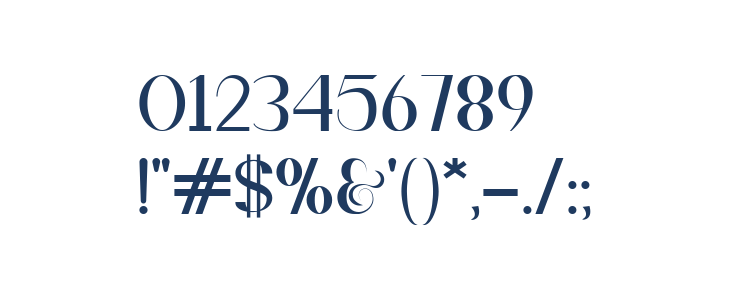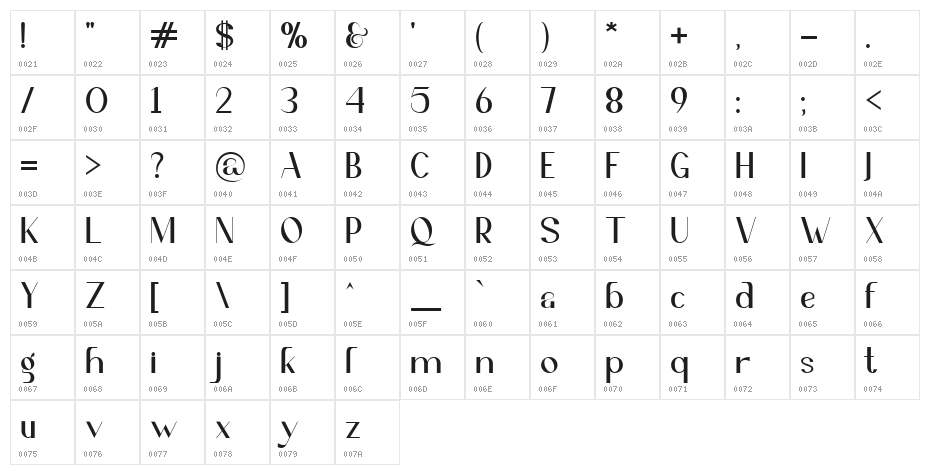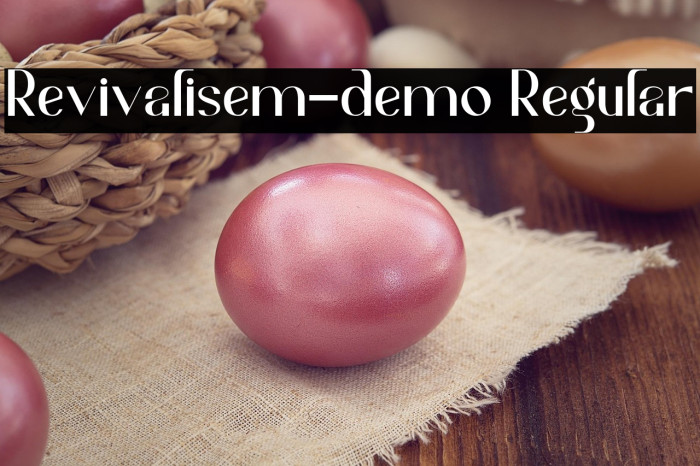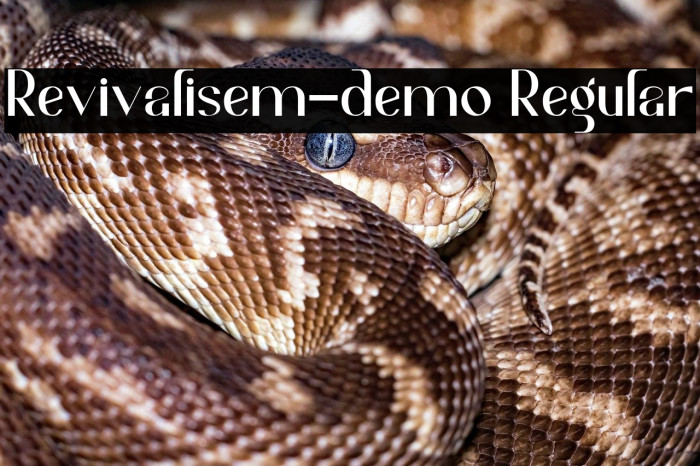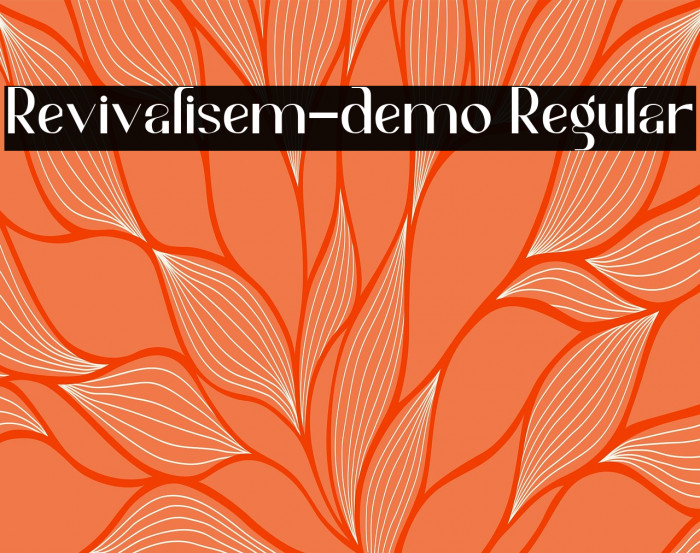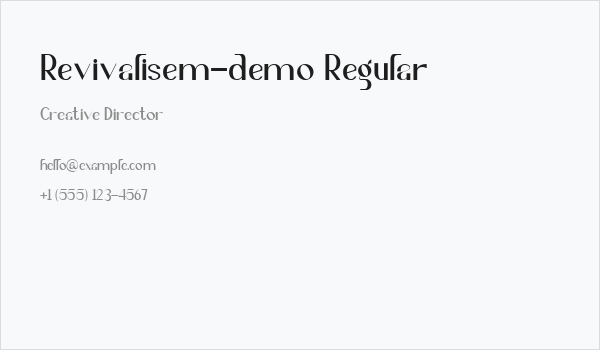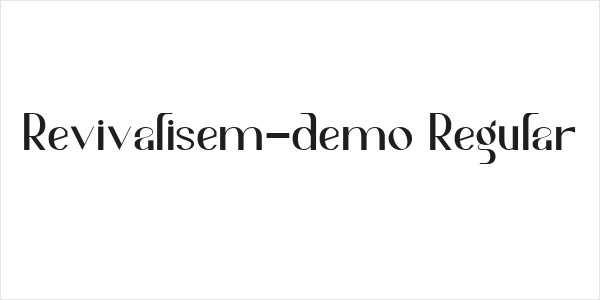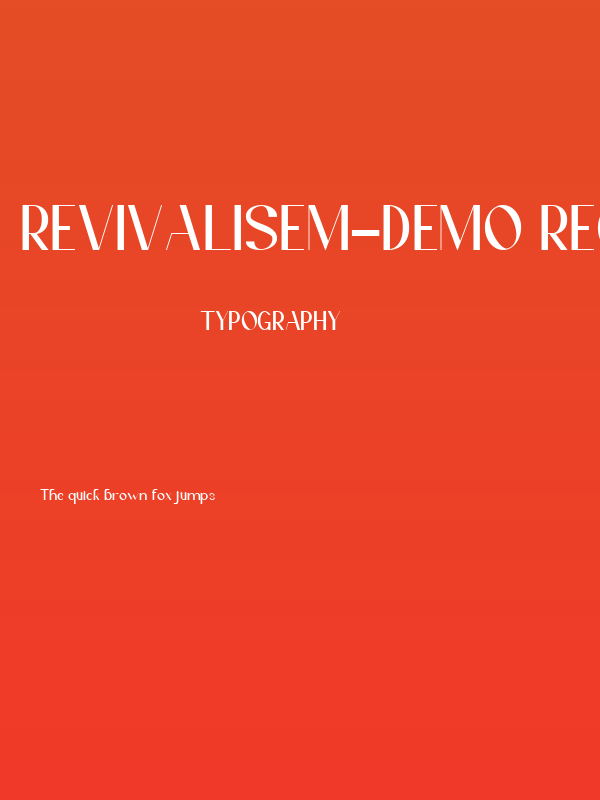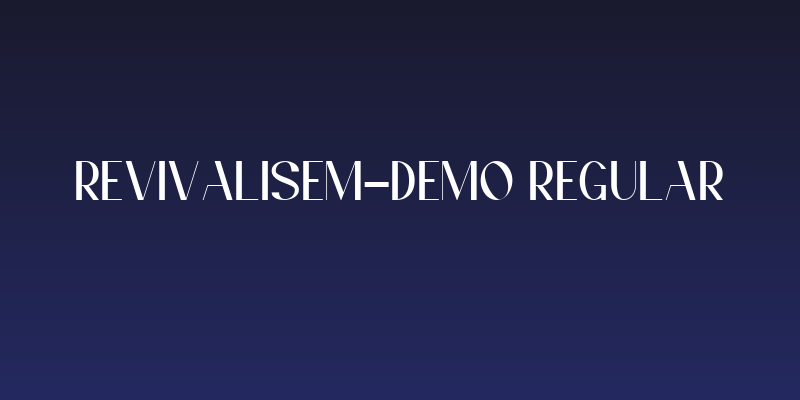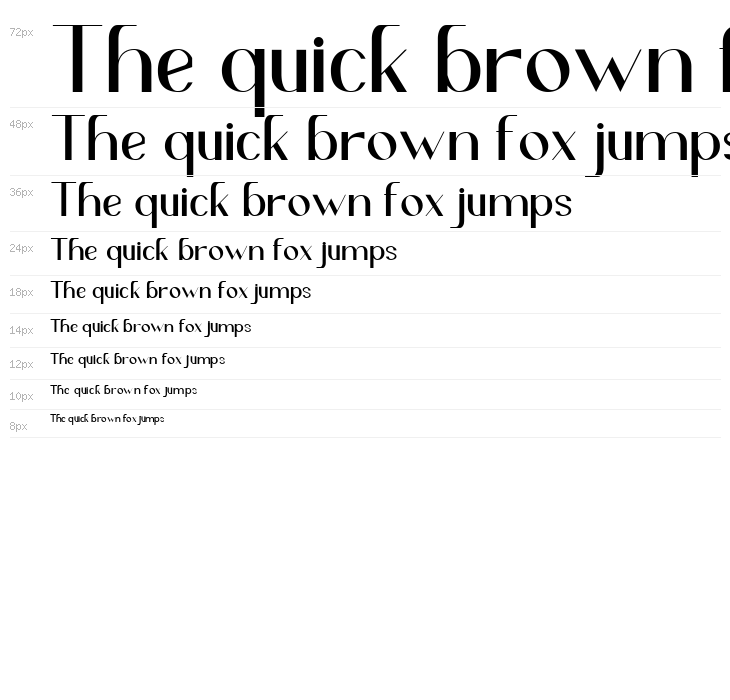
Revivalisem-demo Regular Font
Revivalisem-demo Regular Description
This font features a modern and elegant design with a high contrast between thick and thin strokes, giving it a sophisticated and stylish appearance. The uppercase letters are bold and striking, while the lowercase letters maintain a graceful flow. The numerals are distinct and well-proportioned, complementing the overall aesthetic. Special characters are creatively designed, adding a unique flair to the font. Its clean lines and contemporary style make it suitable for a variety of design projects.
| Use Case | Headlines, Logos, Editorial Design |
| Proposed Projects | Ideal for branding, editorial design, fashion magazines, and luxury product packaging. |